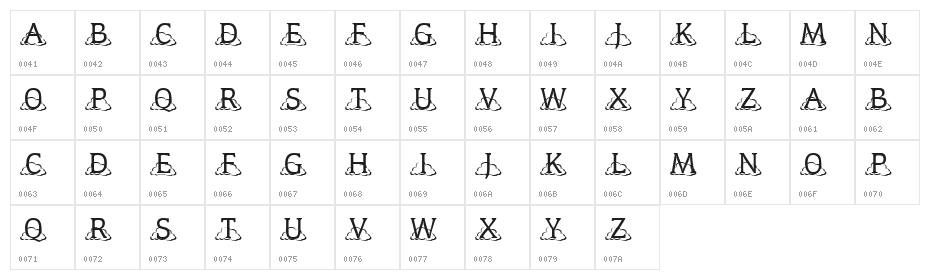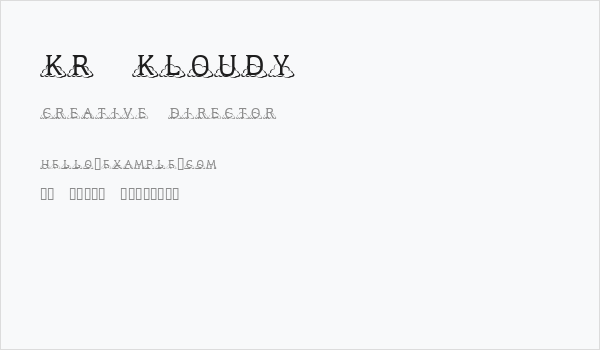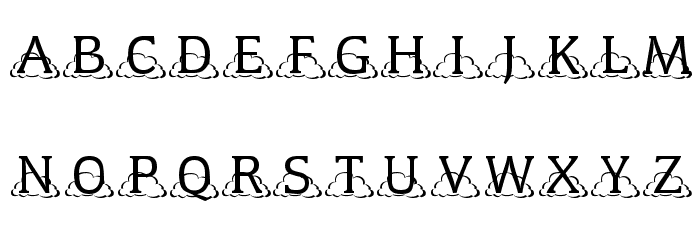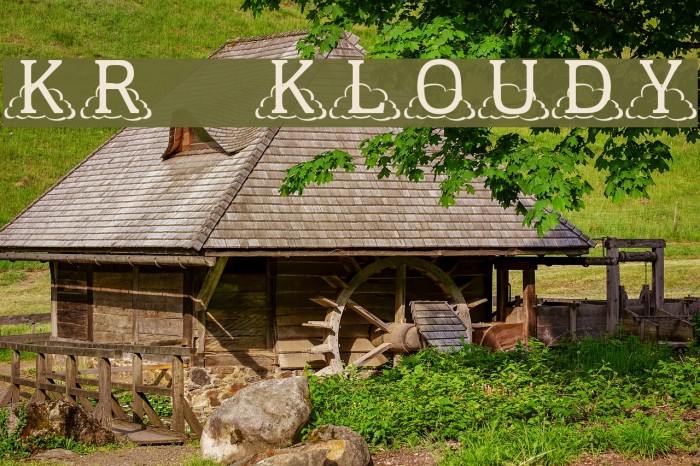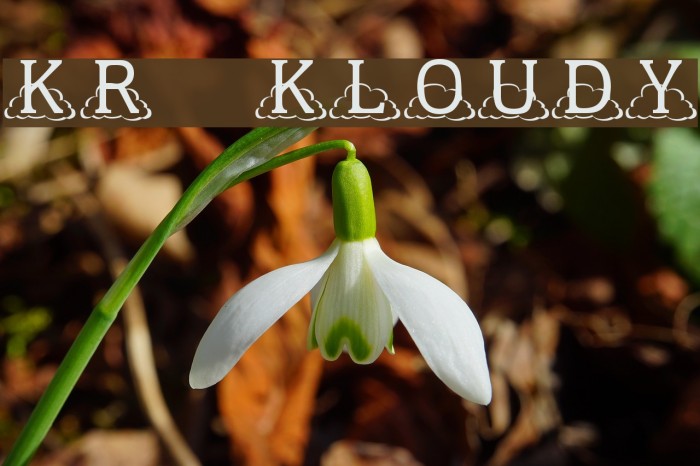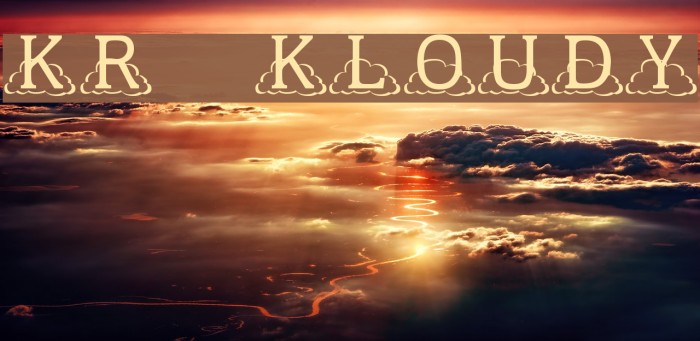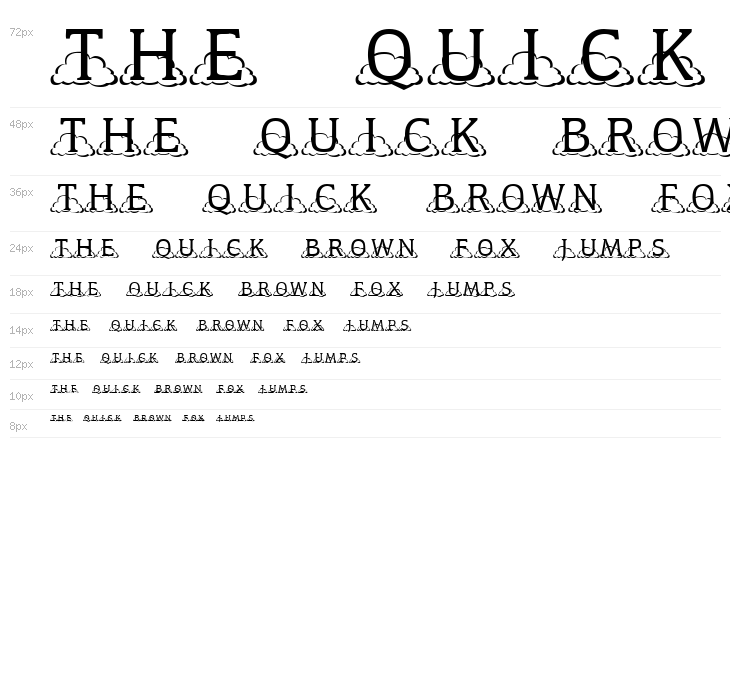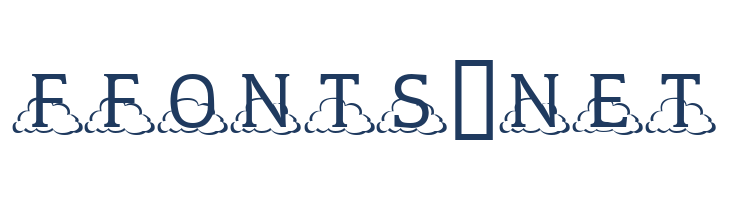
KR Kloudy Font
This font features a whimsical and decorative style, with each character adorned by cloud-like embellishments at the base. The uppercase letters are bold and structured, providing a strong contrast to the playful cloud motifs. The design is unique and eye-catching, making it ideal for creative projects that require a touch of fantasy or imagination. The font maintains a consistent weight throughout, ensuring readability while still offering a distinct artistic flair. Its decorative nature makes it less suitable for body text but perfect for headlines or titles where a statement is desired.
| Proposed Projects | Perfect for children's book covers, fantasy-themed posters, playful branding, and artistic invitations. |